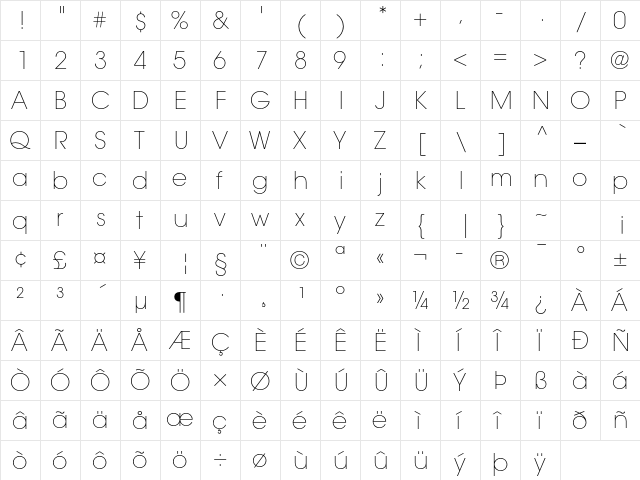
ITC Avant Garde Gothic Std Extra Light
| Designer | Herb Lubalin, Tom Carnase, Ed Benguiat, Adobe Type Staff |
Design Context for ITC Avant Garde Gothic Std Typeface
ITC Avant Garde Gothic Std has the quiet confidence of well-executed sans-serif typography: versatile, unobtrusive, and dependable at any size. The delicate stroke weight brings airiness and refinement to layouts.
A natural fit for high-end product packaging, luxury brand identities, and refined web typography.
Font Pairing: Pair ITC Avant Garde Gothic Std with a medium or bold serif for headlines — the weight contrast creates an elegant, high-end feel.
Pro Tip: Use ITC Avant Garde Gothic Std with generous tracking and line-height for the most luxurious effect — light sans-serifs reward spacious, considered layouts.